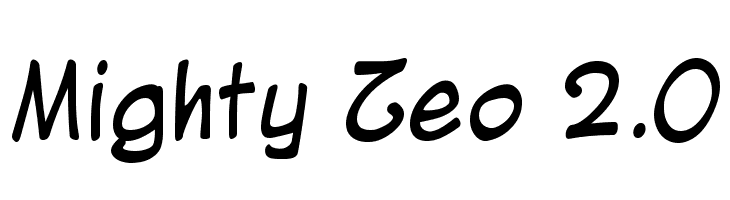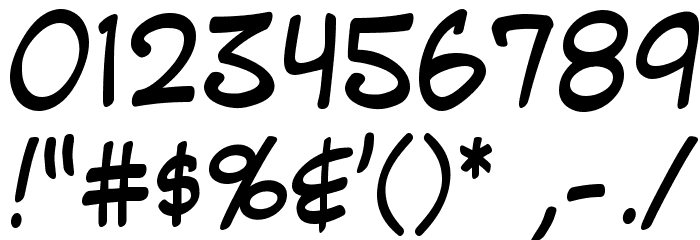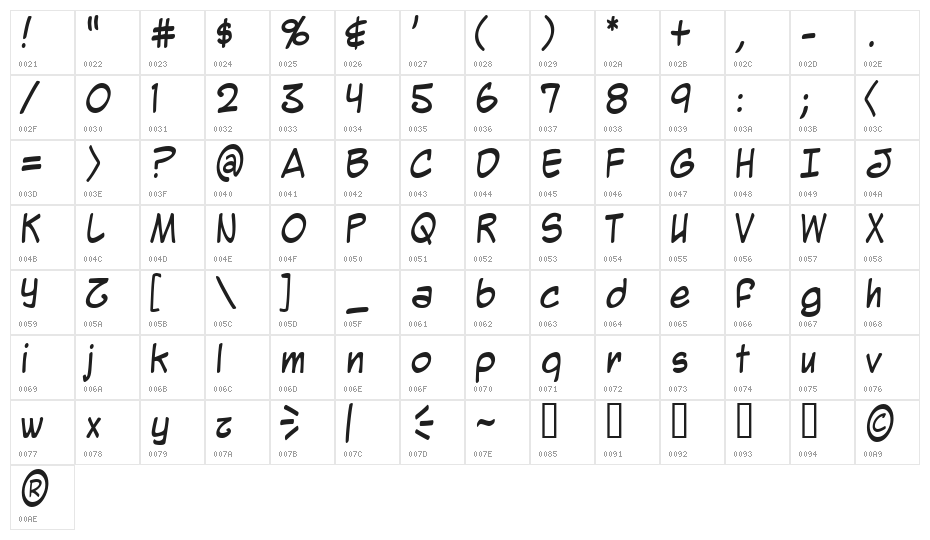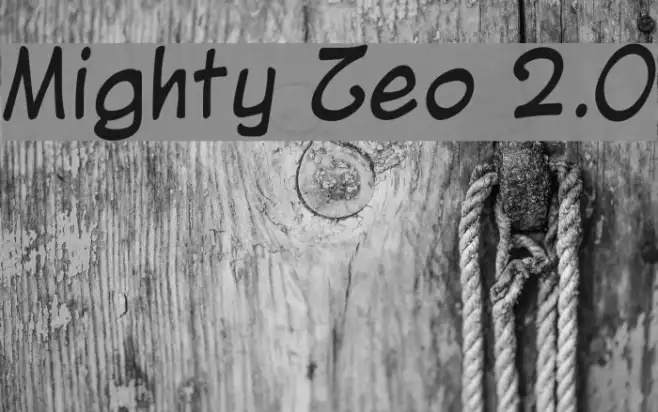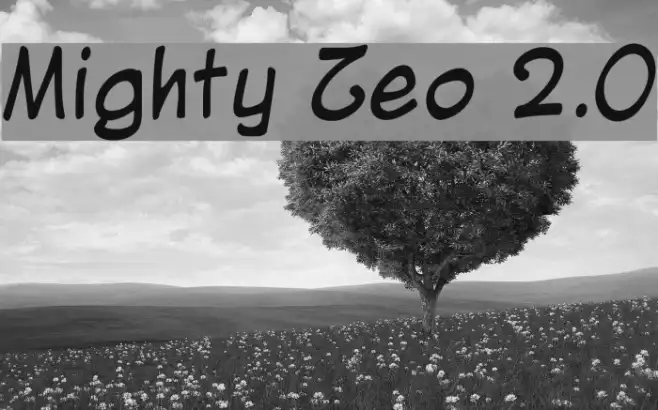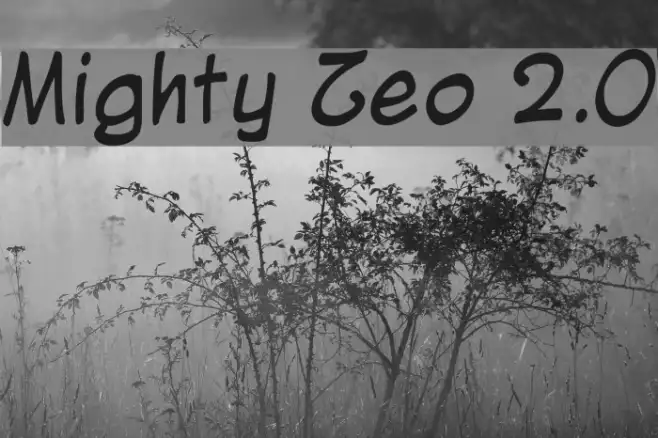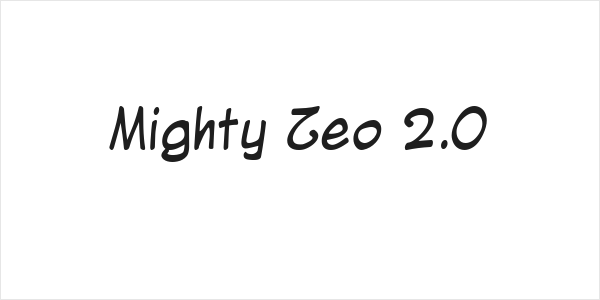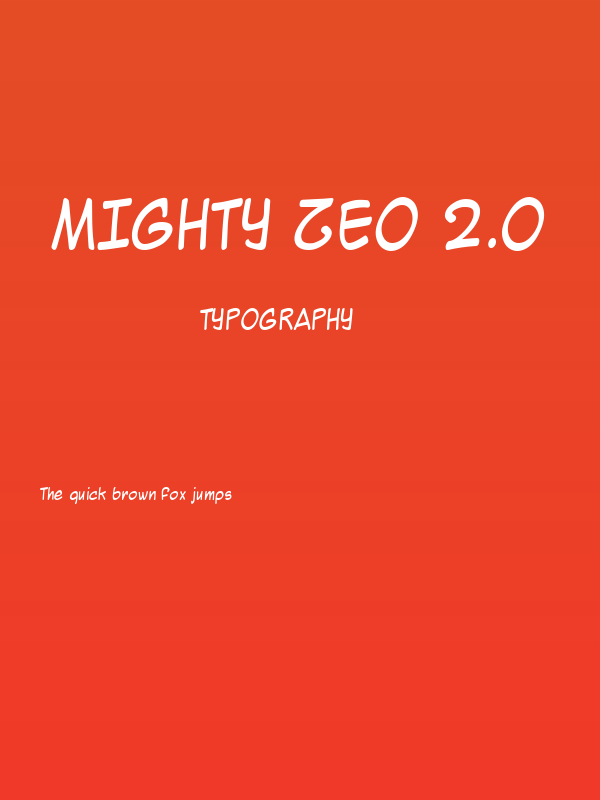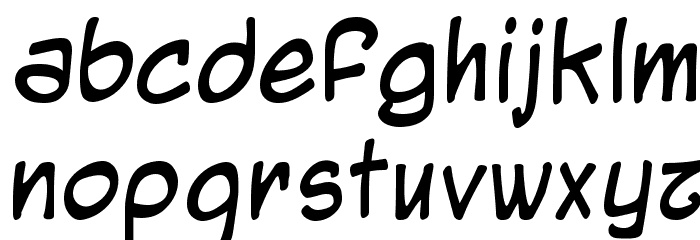
Mighty Zeo 2.0 Font
Mighty Zeo 2.0 Description
This font features a playful and casual handwritten style, characterized by its rounded and slightly irregular letterforms. The strokes are bold and consistent, giving it a friendly and approachable appearance. The uppercase and lowercase letters maintain a uniform height, while the numbers and special characters integrate seamlessly with the overall design. The font's informal nature makes it suitable for projects that require a personal touch or a sense of whimsy.
| Proposed Projects | Ideal for children's books, greeting cards, casual branding, and playful social media graphics. |